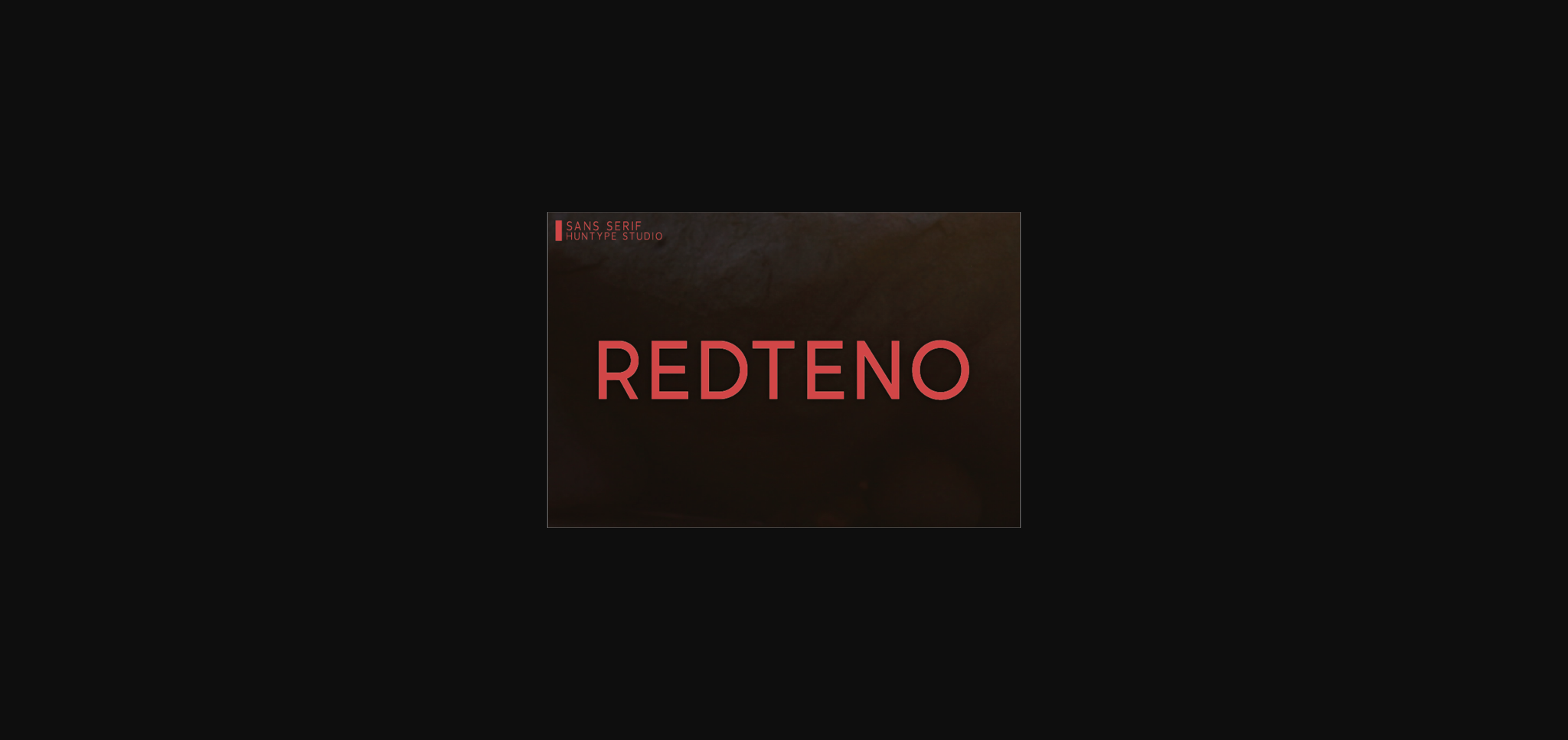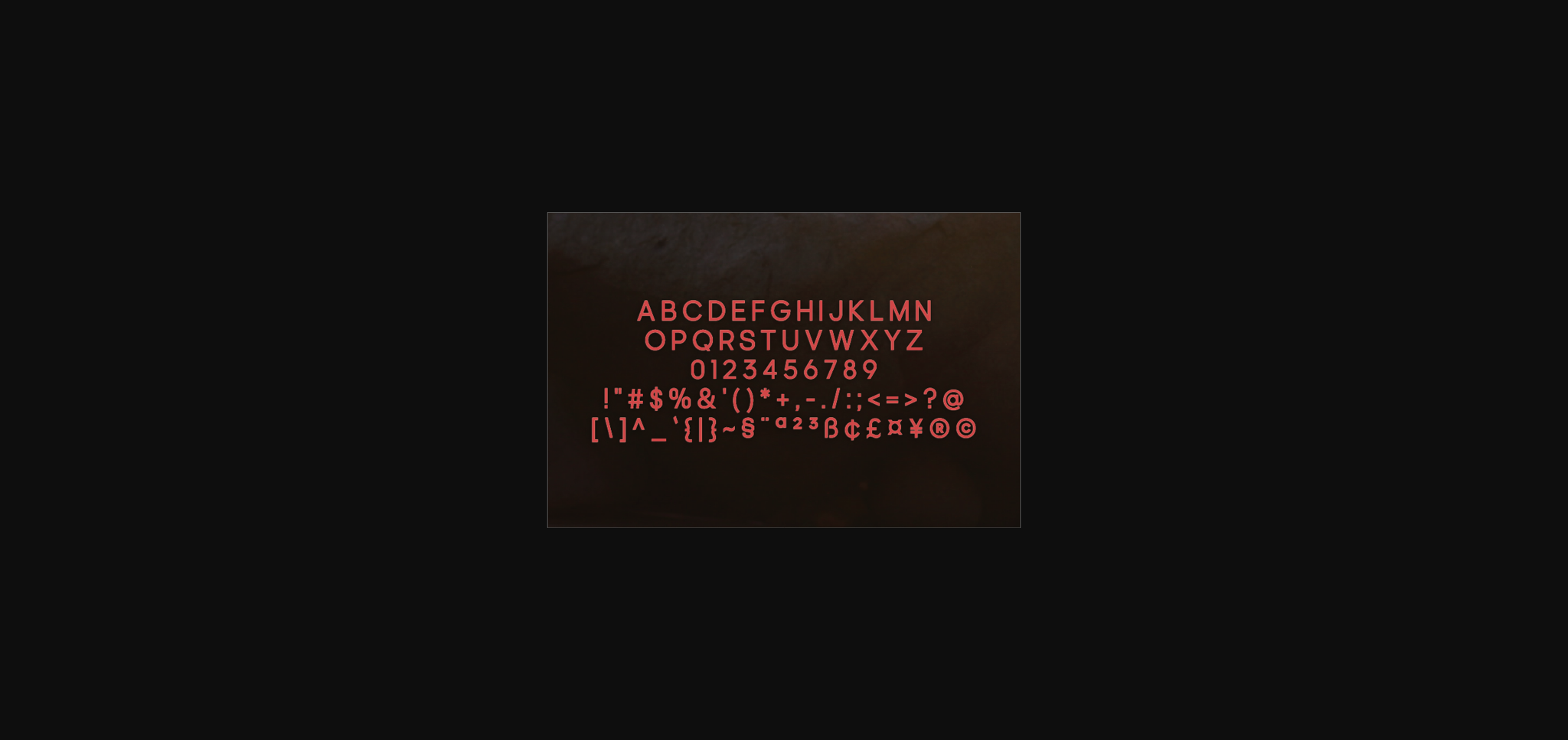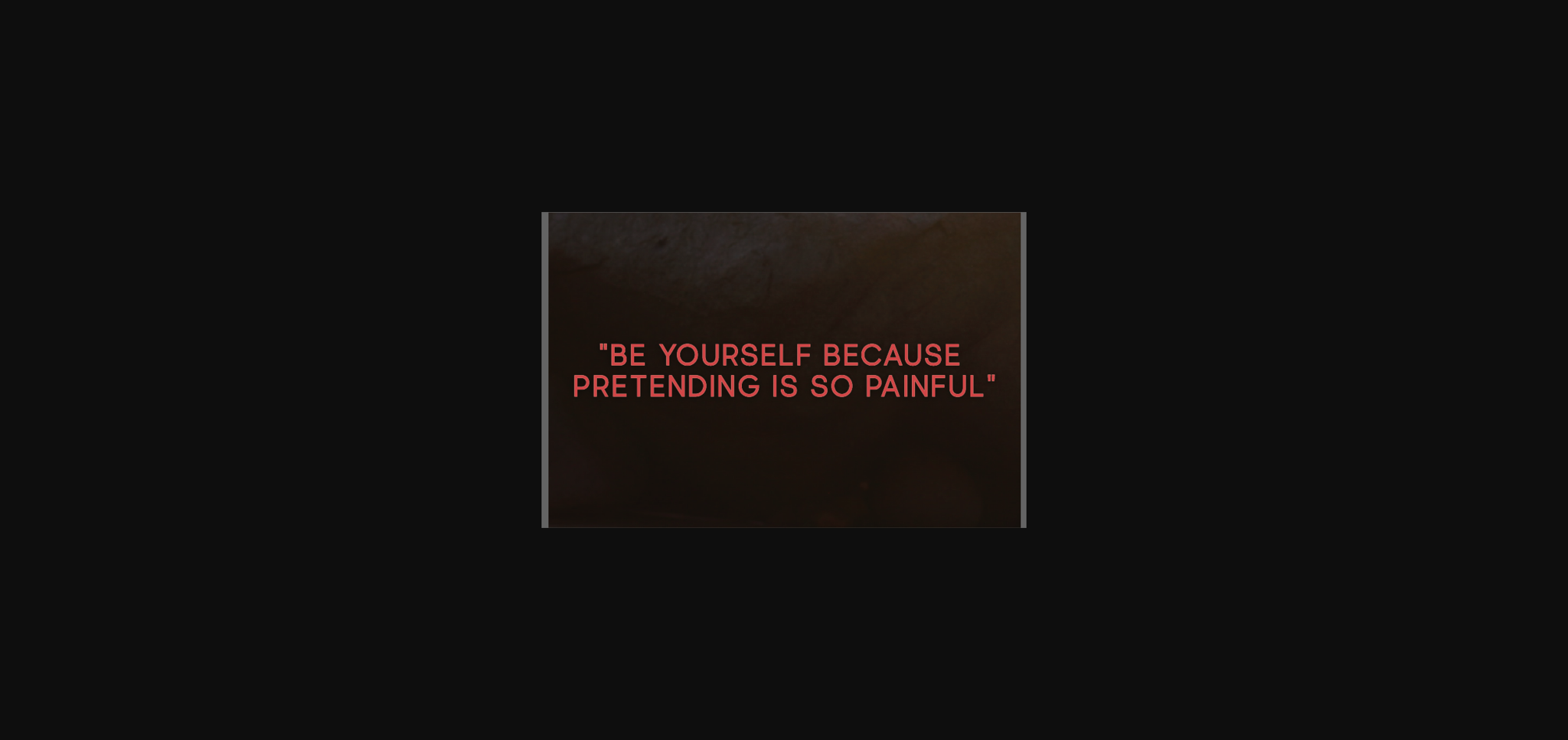
About Redteno Font
Redteno is a thin and clean sans serif font. It can be used for various purposes such as logos, headings, t-shirts, letterhead, signage, labels, news, posters, badges and so much more.